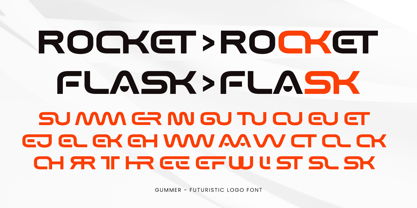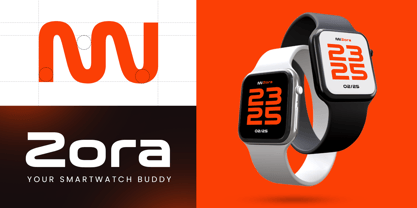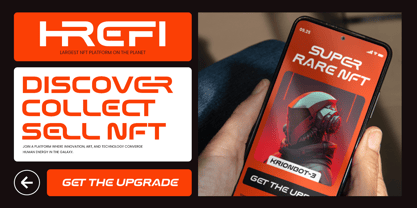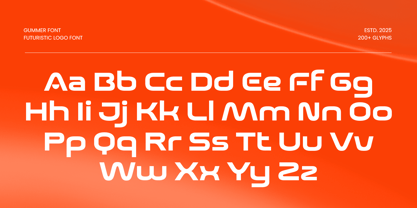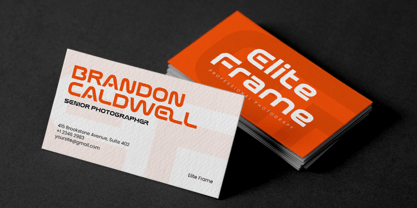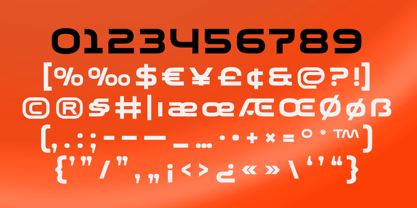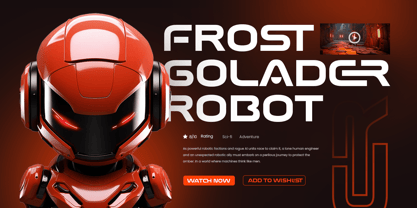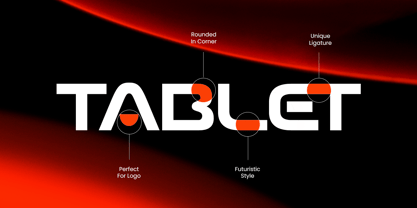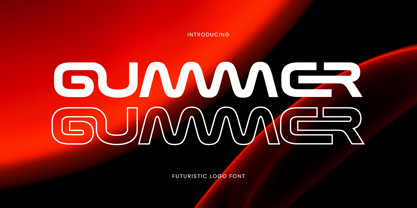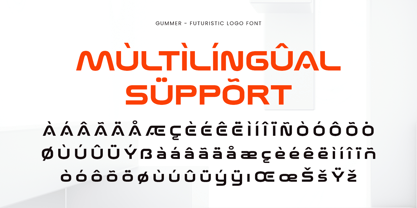
Gummer
A família de fontes Gummer foi desenhada por Zamroni Hamzah e publicada pela Sensatype Studio. Gummer contém 4 estilos e opções de pacote familiar. Saiba mais sobre esta família
GUMMER is a futuristic display font built to make your logos, headlines, and tech designs stand out with confidence. With its sharp edges, clean geometry, and sleek structure, GUMMER delivers a modern sci-fi aesthetic that's perfect for startups, gaming brands, digital interfaces, or any project aiming for a bold, forward-thinking impression.
Crafted for versatility and impact, GUMMER strikes a balance between edgy tech vibes and professional readability. Whether you're designing a cyberpunk poster, a space-themed project, or a tech startup logo, this font will push your visuals into the future.
Add futuristic depth to your branding with GUMMER — a logo font that captures movement, energy, and innovation.
GUMMER Futuristic Logo Font Features:
• Futuristic and Tech-Inspired Letterforms
• Ready with 4 Styles: Regular, Italic, Outline, Outline-Italic
• Perfect for Logos, Tech Brands, UI, Posters, and Gaming
• Punctuation, Numbers, and Symbols
• Uppercase and Lowercase
• Opentype Features